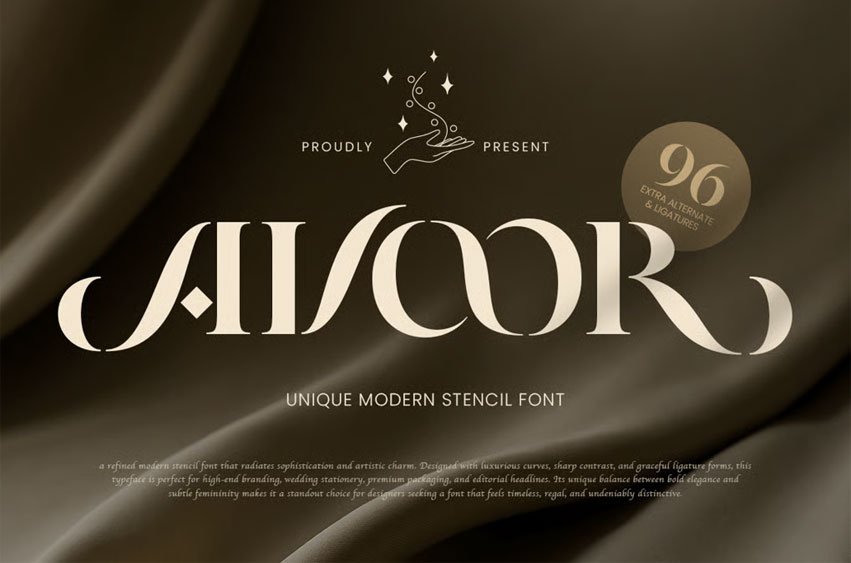
Avoor Font is a unique classy stencil font designed to bring a refined artistic touch to modern branding. With its luxurious serif structure and carefully crafted stencil cuts, this typeface creates a bold, sophisticated, and memorable visual identity ideal for high-end brands and editorial layouts.
The distinctive stencil gaps give AVOOR a contemporary sculpted look — making it perfect for logos, fashion campaigns, magazine headers, packaging, and premium product branding. Its elegant balance between classic forms and modern experimental cuts delivers a striking combination of refinement and creativity.
Whether you’re building a fashion identity, designing luxury marketing visuals, or creating expressive editorial compositions, AVOOR brings character, elegance, and strong personality to every design.
AVOOR – Unique Classy Stencil Font Features
- Elegant serif style with modern stencil cuts
- Perfect for luxury branding, editorial design, and high-end packaging
- Unique sculpted details for artistic, premium visual identity
- Ideal for beauty, fashion, lifestyle, and creative industries
- Uppercase, lowercase, numerals, and punctuation included
- OpenType features for enhanced typographic expression